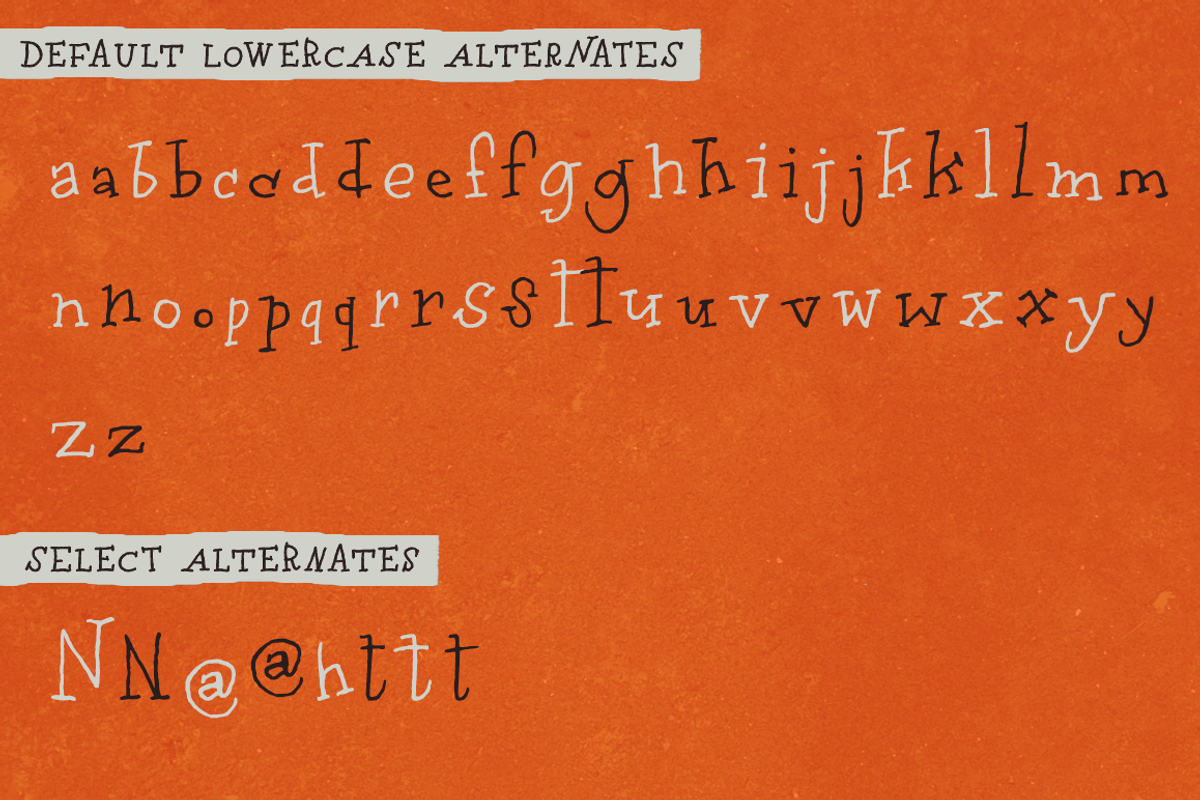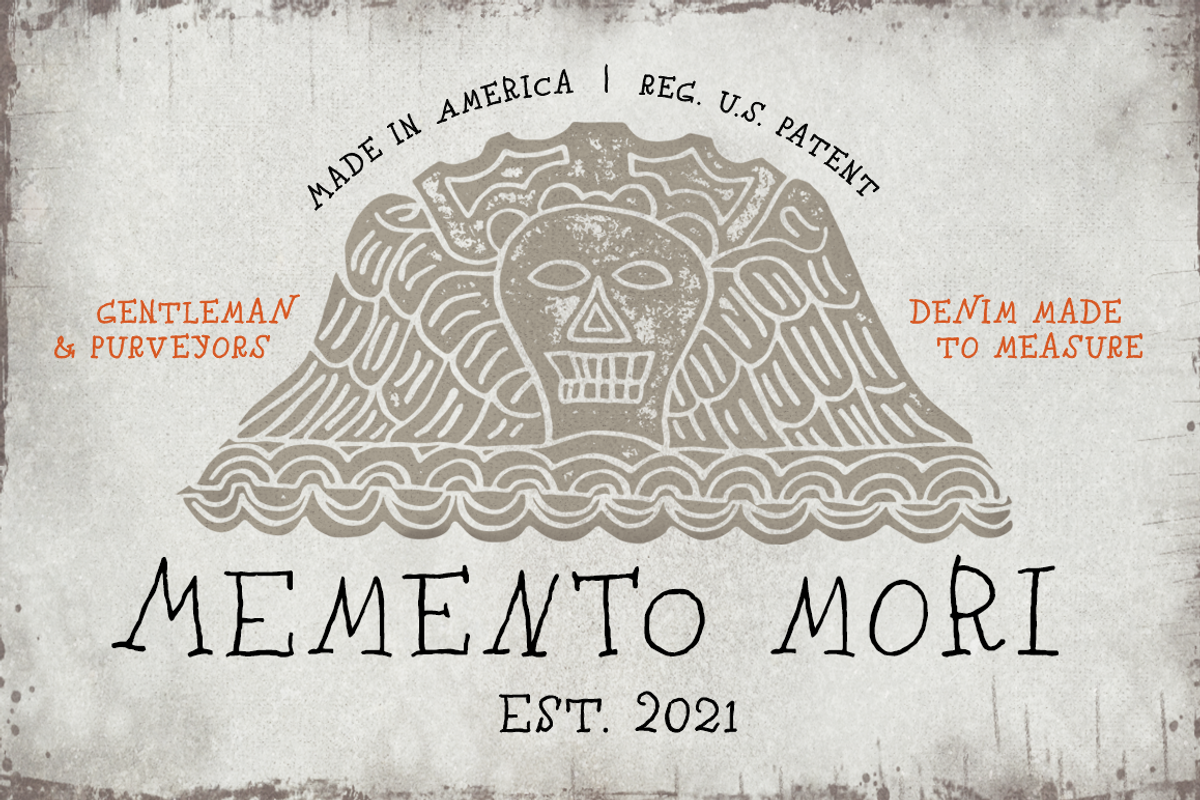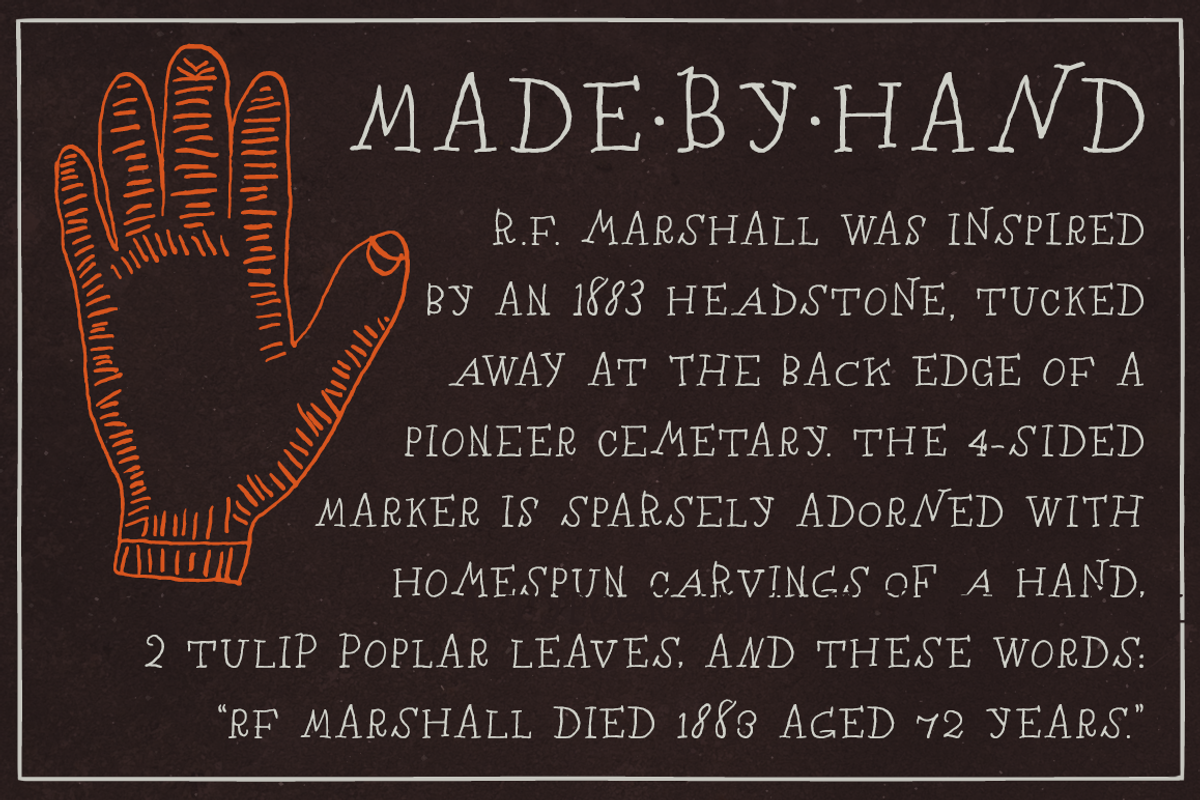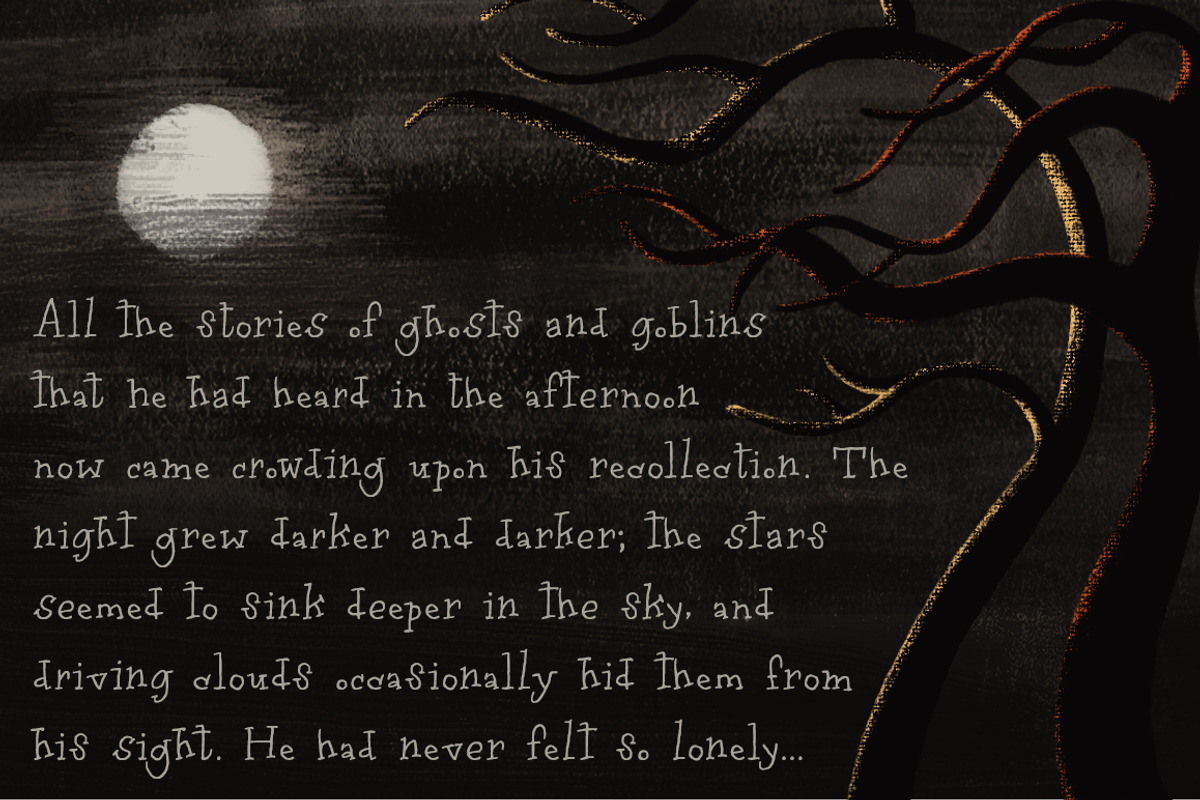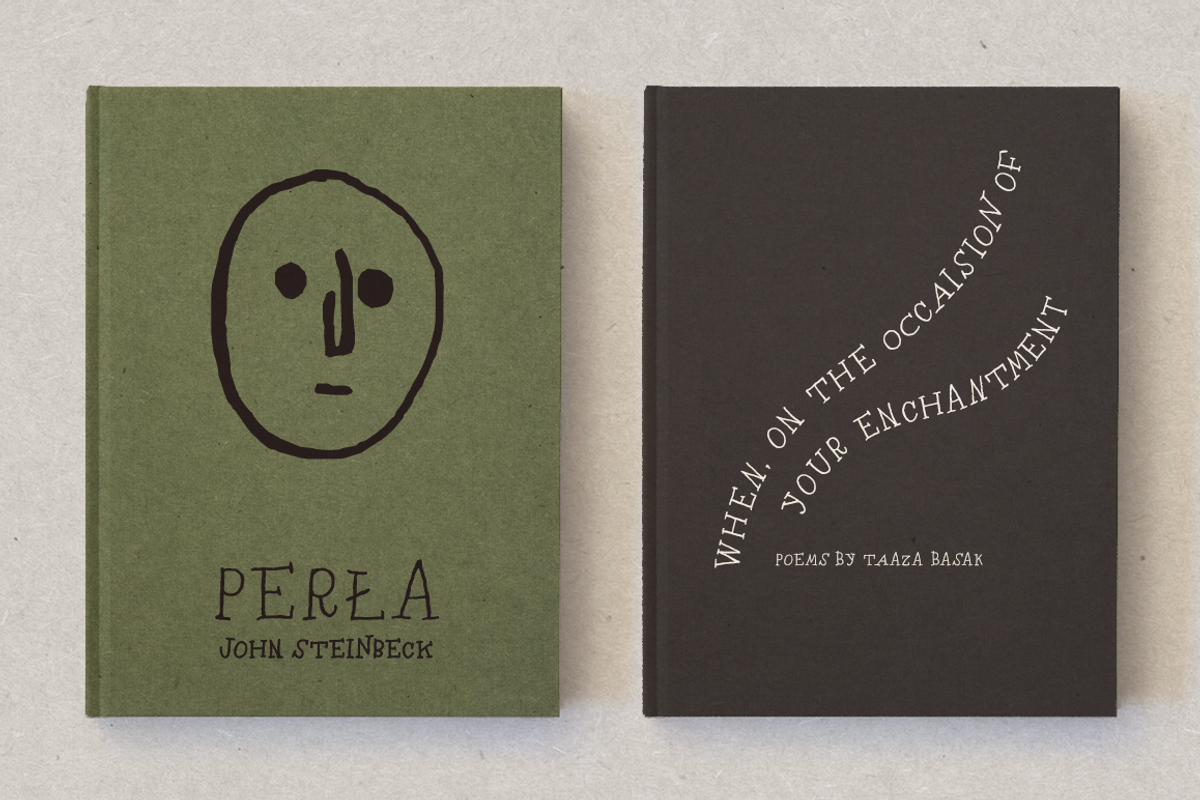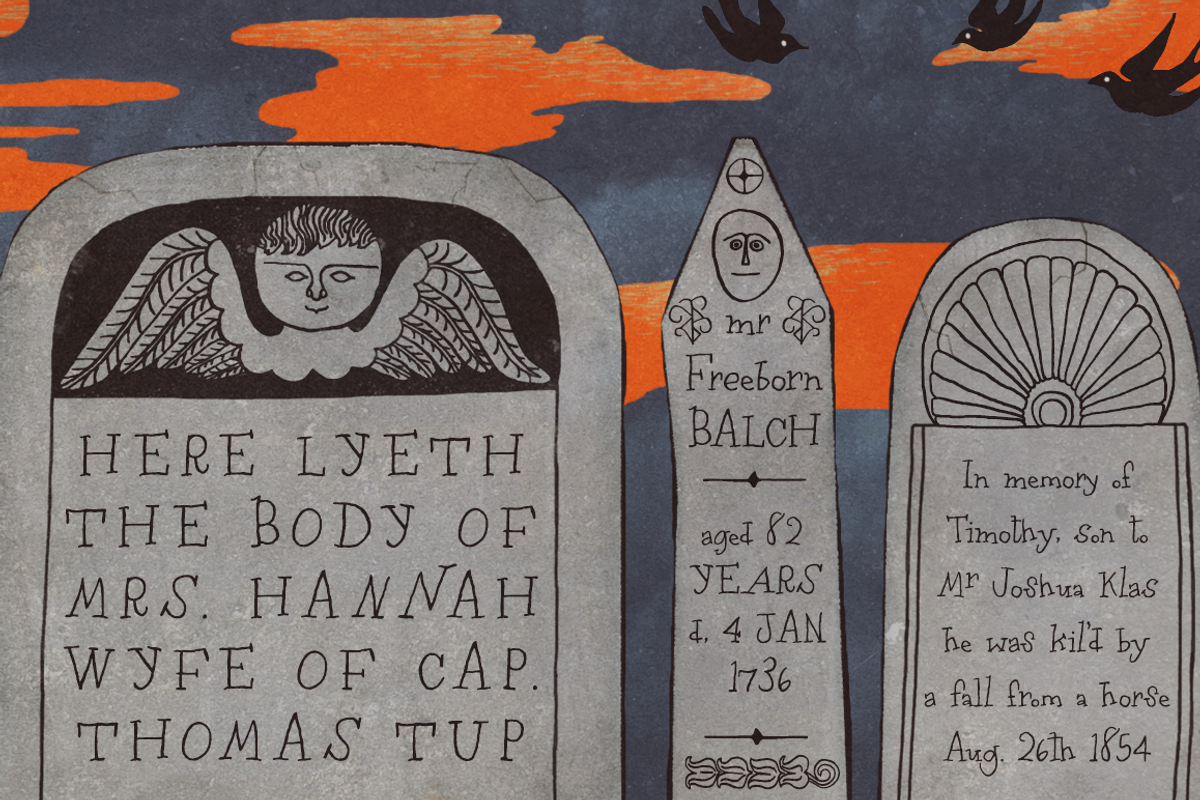
RF Marshall Font
RF Marshall was inspired by an 1883 tombstone, tucked away in a pioneer cemetary. The 4-sided marker is sparsely adorned with homespun carvings of a handprint, two tulip poplar leaves, and these words: "RF Marshall died 1883 Aged 72 years."
The font faithfully reproduces the stone's hand-carved lettering and artwork, as well as artwork from other 18th and 19th century American headstones. It was drawn with calligraphy nibs dipped in walnut ink and delights in a range of end uses including period films, rustic decor, Halloween decorations, historical logos and branding, and on the pages of children's books.
a basic Latin character set with a full set of uppercase and lowercase letters, multilingual diacritics, numbers, international currency figures, punctuation and pagination symbols.
a complete set of alternate uppercase and lowercase letters (with diacritics) plus numerals
alternate cuts (with diacritics) of N, h, t, and @
87 spooky graphic elements, all traced from actual 17th and 18th century headstones